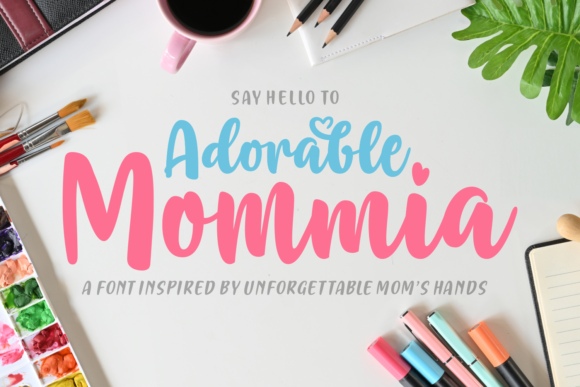
Adorable Mommia Font
Adorable Mommia Font is perfect for motherhood blog designs, baby boutique branding, family photography studios, children's product packaging, maternity clinic materials, parenting magazine layouts, nursery decor signage, mom-focused social media graphics, family-friendly business communications, and heartwarming Mother's Day campaigns.
Adorable Mommia Font creates excitement because it embodies the tender love and nurturing warmth of motherhood with its gentle letterforms and maternal character design. The font's caring curves and protective aesthetic instantly convey unconditional love and maternal devotion, making any brand appear loving and deeply nurturing. Its carefully crafted motherly details and family-inspired character create an immediate sense of maternal comfort that captivates audiences seeking caring experiences, family-centered products, and brands that celebrate the incredible strength and boundless love of mothers and maternal relationships.
The Adorable Mommia Font family includes multiple weights and styles: Regular, Bold, Light, Medium, Italic, Condensed, Extended, Loving, Caring, and Maternal versions. Each variant maintains the font's signature motherly character while offering different levels of tenderness and nurturing styling suitable for various family-oriented and maternal applications.
This heartwarming typeface brings the authentic spirit of maternal love into contemporary family design with remarkable warmth and nurturing appeal. Adorable Mommia Font Free Download provides family brands and maternal organizations with access to premium motherhood typography that embodies the essence of unconditional love and caring devotion. The font's loving appearance and maternal authenticity make it ideal for businesses seeking to establish meaningful connections with mothers and families who appreciate genuine care and nurturing support. Whether you're creating branding for family services, designing materials for maternal health organizations, developing packaging for children's products, or producing content for motherhood-focused platforms, this font delivers the caring atmosphere that resonates with mothers seeking supportive experiences, loving products, and the understanding warmth that comes from truly caring brands. Its versatile design ensures outstanding performance across both precious printed materials and nurturing digital communications while maintaining the character of authentic maternal typography. The font excels in applications requiring family credibility and maternal appeal. Family business professionals appreciate its ability to convey genuine maternal care while remaining highly functional for various family communications and motherhood-focused promotional materials. The comprehensive character set includes loving flourishes and extensive international language support, making it perfect for global family brands and international maternal organizations seeking to communicate authentic motherly love, nurturing care, and maternal strength to diverse worldwide audiences who cherish the sacred bond between mothers and children, celebrate the incredible journey of motherhood, and seek the comforting embrace of genuine maternal care that makes every family feel loved, supported, and beautifully connected.